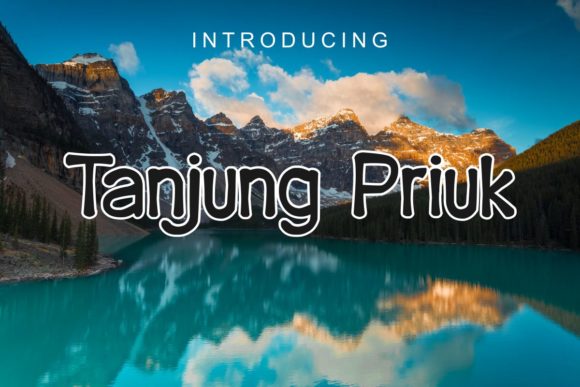
Introducing Tanjung Priuk, the font that's about to revolutionize your design game. This remarkable sans serif font exudes minimalism and elegance, effortlessly elevating your projects to a whole new level of sophistication. Its clean lines and sharp edges lend a touch of modernity, while its versatile charm allows it to blend seamlessly with a vast array of design styles.
Crafted with meticulous precision by the talented designers at Pidco.art, Tanjung Priuk is a font that speaks to the creative soul. Its inherent versatility makes it the perfect choice for a diverse range of projects, from sleek logos and eye-catching headlines to captivating web designs and stunning social media posts. Unleash your imagination and let Tanjung Priuk transform your creative visions into mesmerizing realities.
With Tanjung Priuk in your design arsenal, you'll discover a newfound ability to communicate your message with clarity and impact. Its crisp and legible letterforms ensure that your words are conveyed with utmost precision, leaving an unforgettable impression on your audience. Whether you're crafting a brand identity, designing a marketing campaign, or simply expressing your artistic flair, Tanjung Priuk will elevate your work to new heights.
But Tanjung Priuk is more than just a font; it's an experience. Its carefully crafted glyphs dance across the page, creating a visual symphony that resonates with the viewer. Immerse yourself in the world of Tanjung Priuk and let its timeless beauty transport you to a realm where creativity knows no bounds.
So, what are you waiting for? Embrace the power of Tanjung Priuk and watch your designs flourish. With this remarkable font at your fingertips, the possibilities are endless. Step into the spotlight and let your creativity shine brighter than ever before.